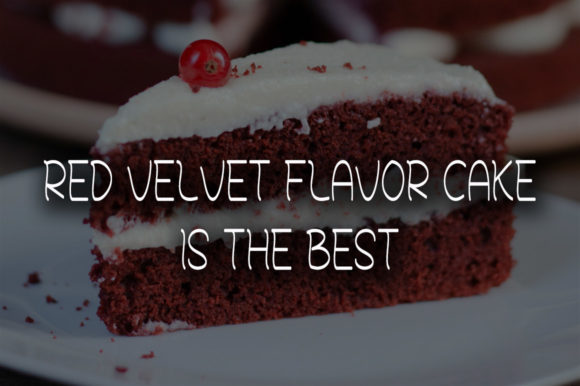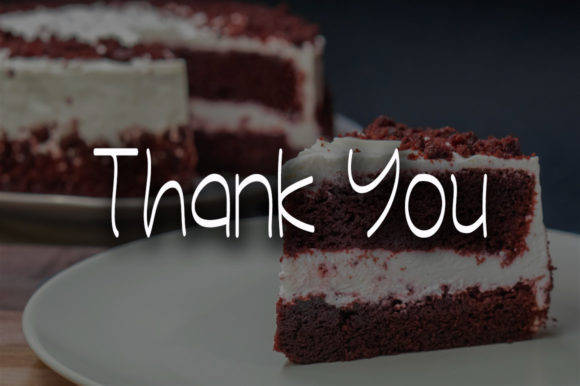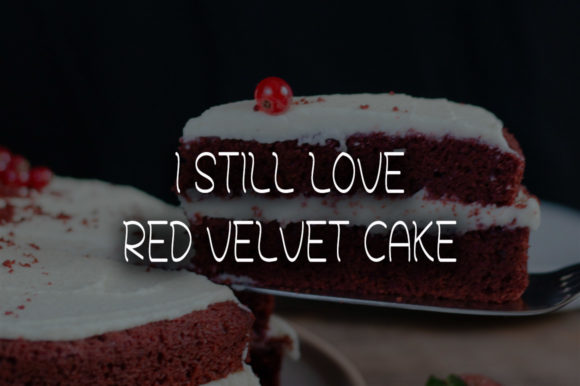
Red Velvet Font
About Red Velvet Font
Red velvet s an exquisite handwritten font with attractive characters that seem to dance along the baseline. Use it in your most creative ideas, and notice how it takes them to the highest levels!